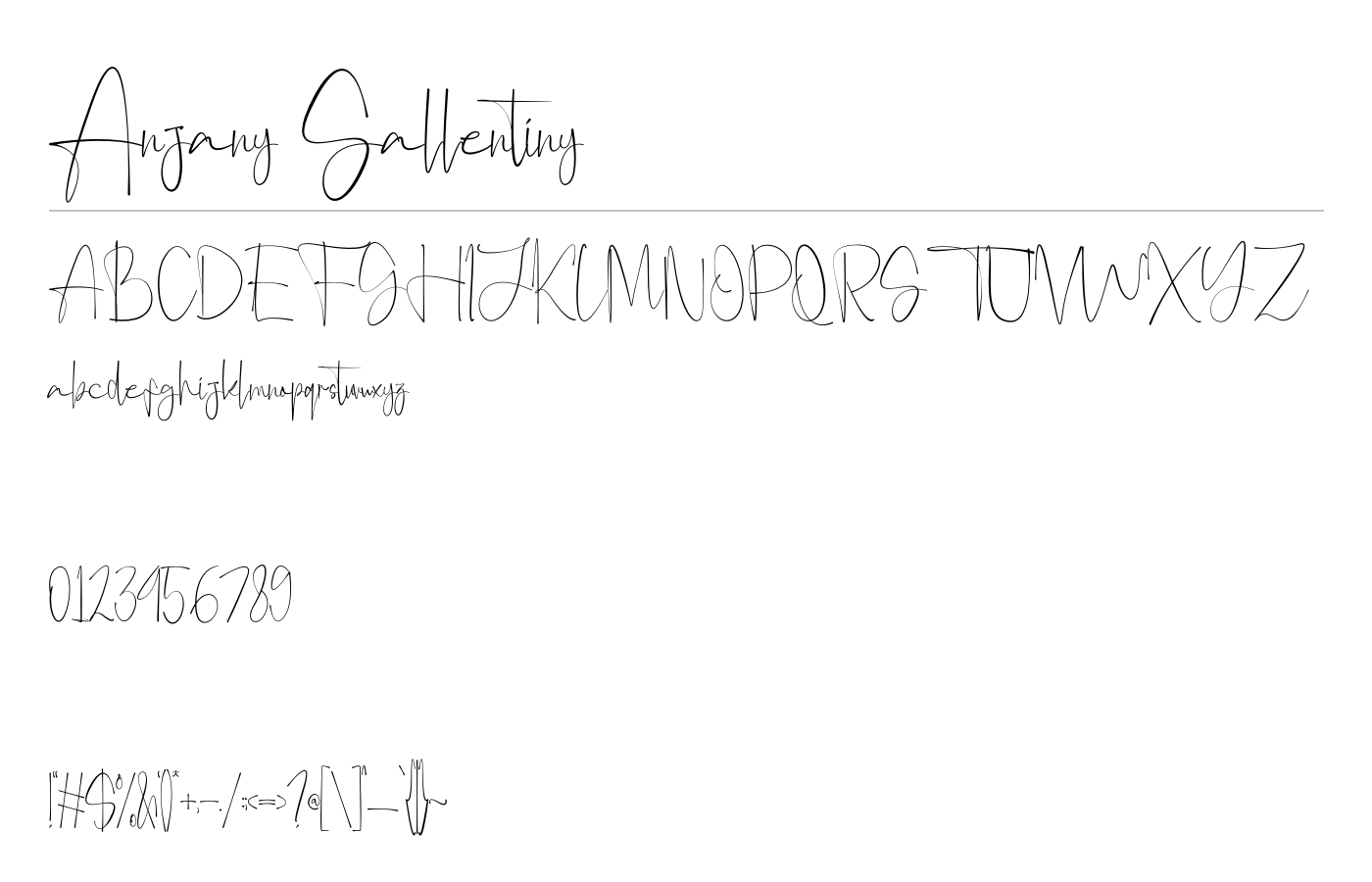
Anjany Sallentiny is a delicate, hand-drawn script font that features tall, narrow letterforms with a casual, whimsical touch. Its thin strokes and loosely connected characters create an airy, light feel, making it perfect for personal, creative, and feminine design projects such as invitations, branding, and social media graphics. This font communicates a sense of elegance with a playful, informal vibe, ideal for adding a unique handwritten charm.
Anjany Sallentiny Font
About Anjany Sallentiny Font
| Font family | Anjany Sallentiny Font |